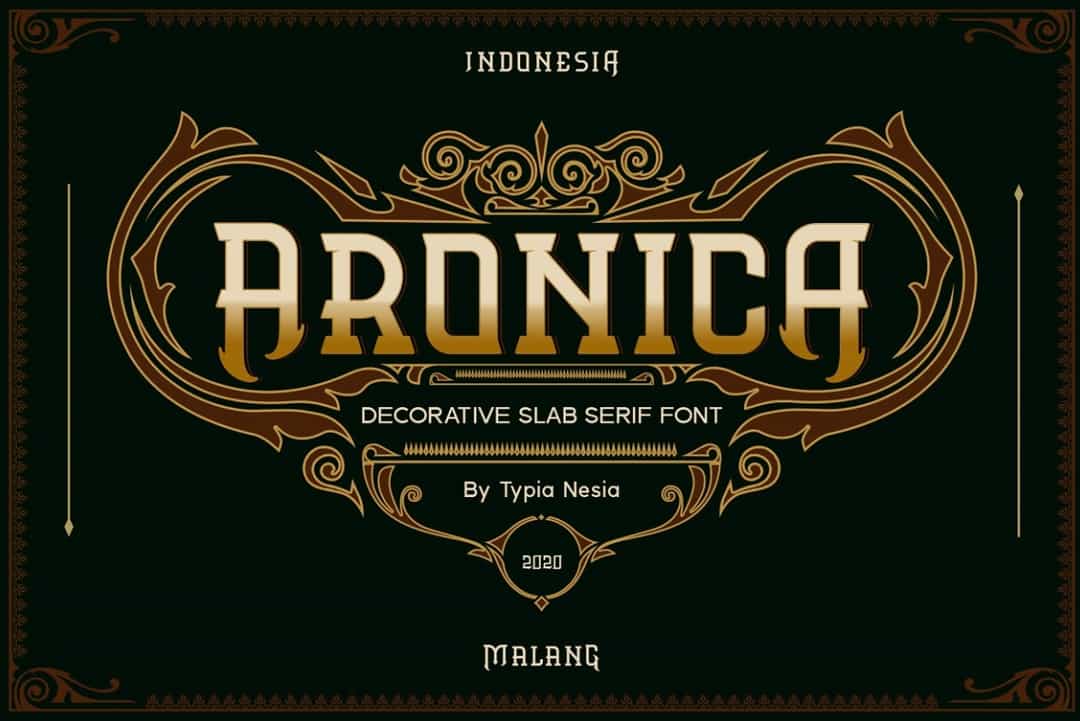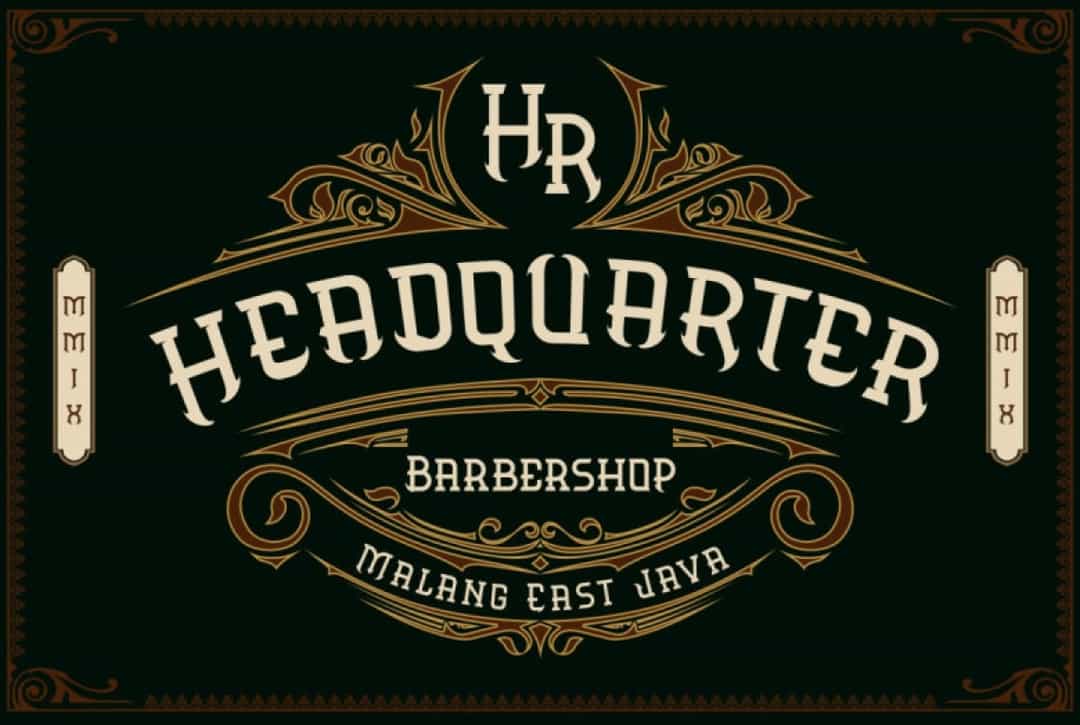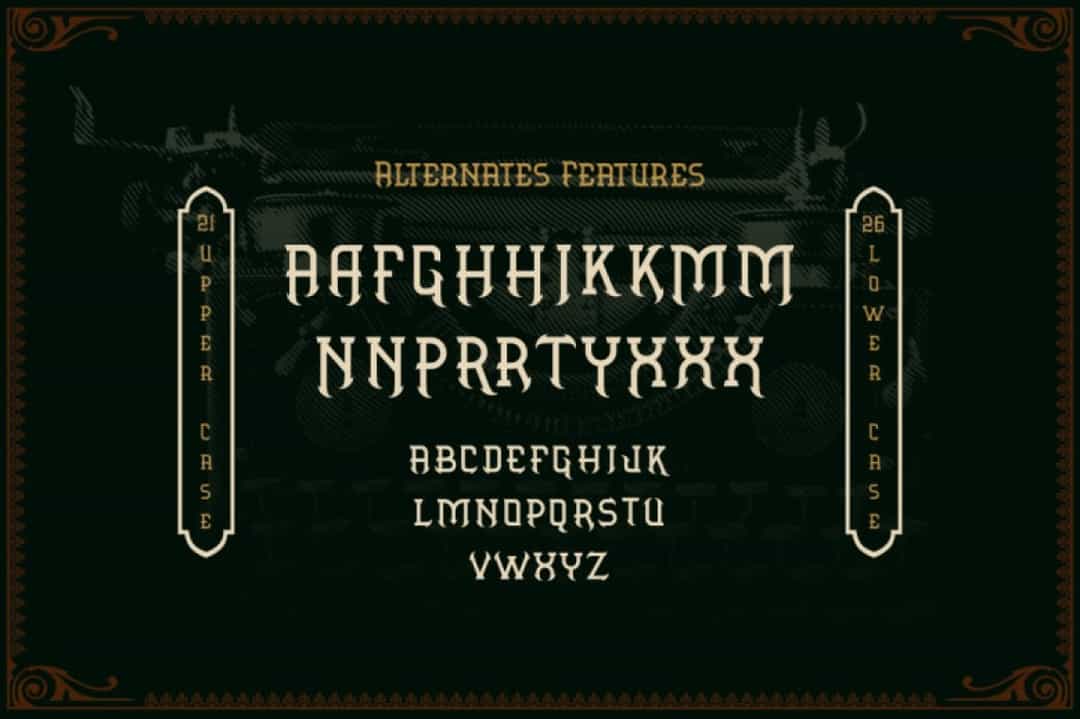
Aronica Slab Serif Font is inspired by classic typography and lends its unique style to every design work. Reminiscent of vintage look, Aronica can add that nostalgic feel that can help bring retro-inspired charm into any project!